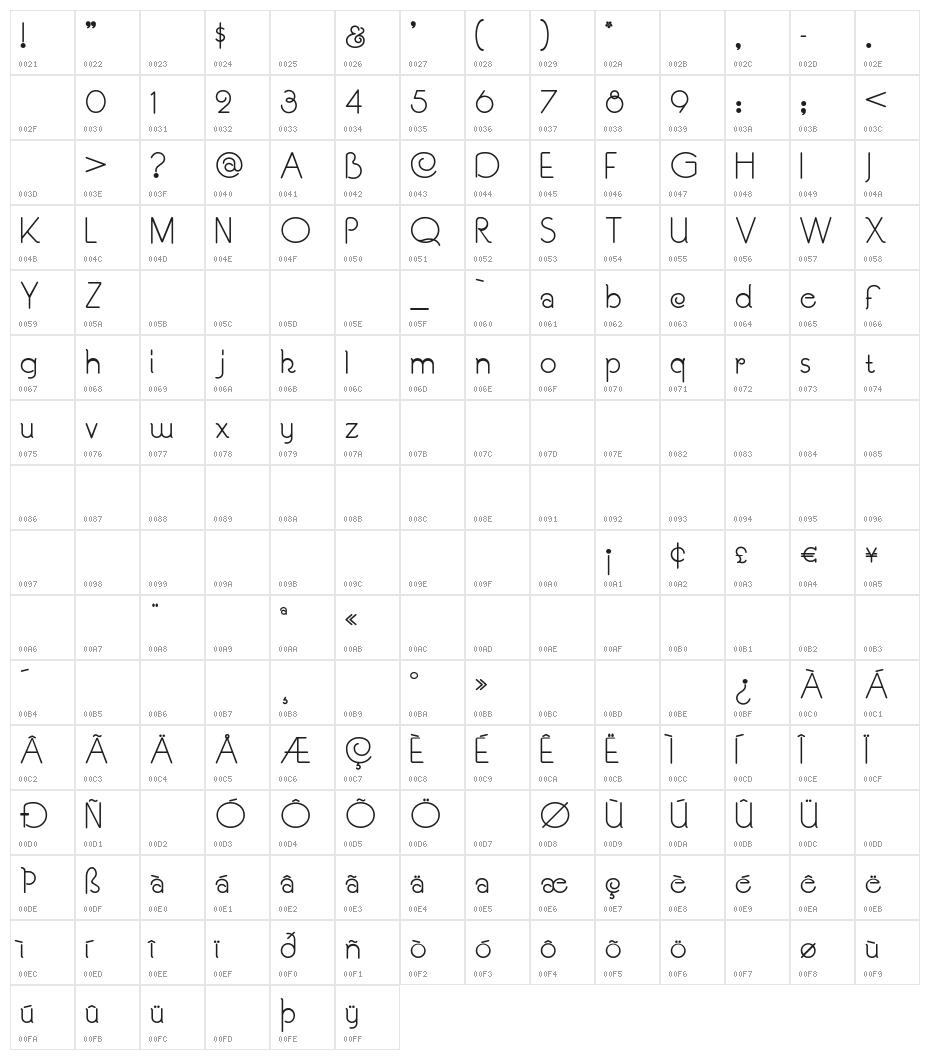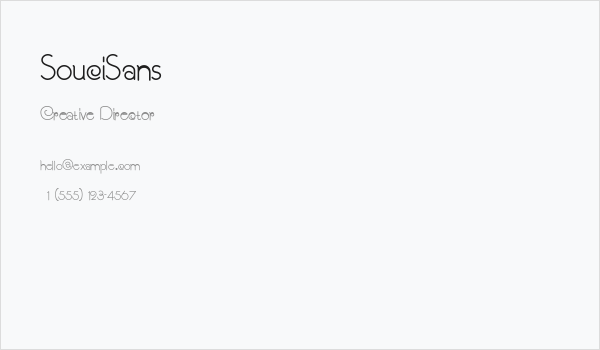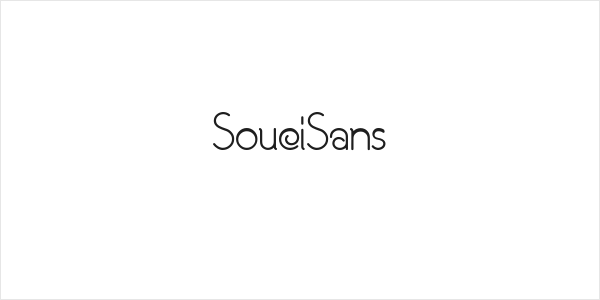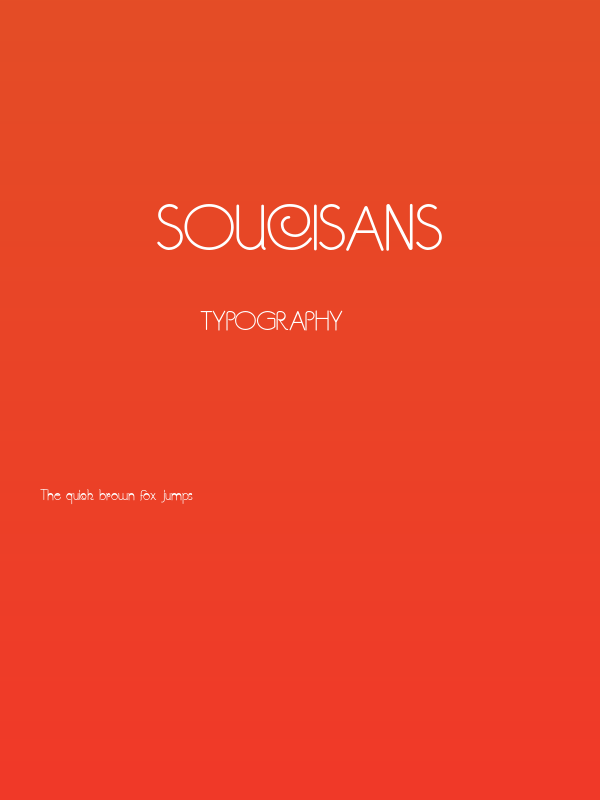
SouciSans Font
SouciSans Description
This font features a unique and playful design with a modern twist. The characters are rounded and have a consistent stroke width, giving it a clean and approachable appearance. The uppercase letters are bold and striking, while the lowercase letters maintain a friendly and inviting look. The numerals are clear and easy to read, and the special characters add a touch of whimsy to the overall style. This font is perfect for projects that require a modern yet playful aesthetic.
Overall StyleModern, Playful
Proposed ProjectsIdeal for children's books, playful branding, modern posters, and creative digital content.